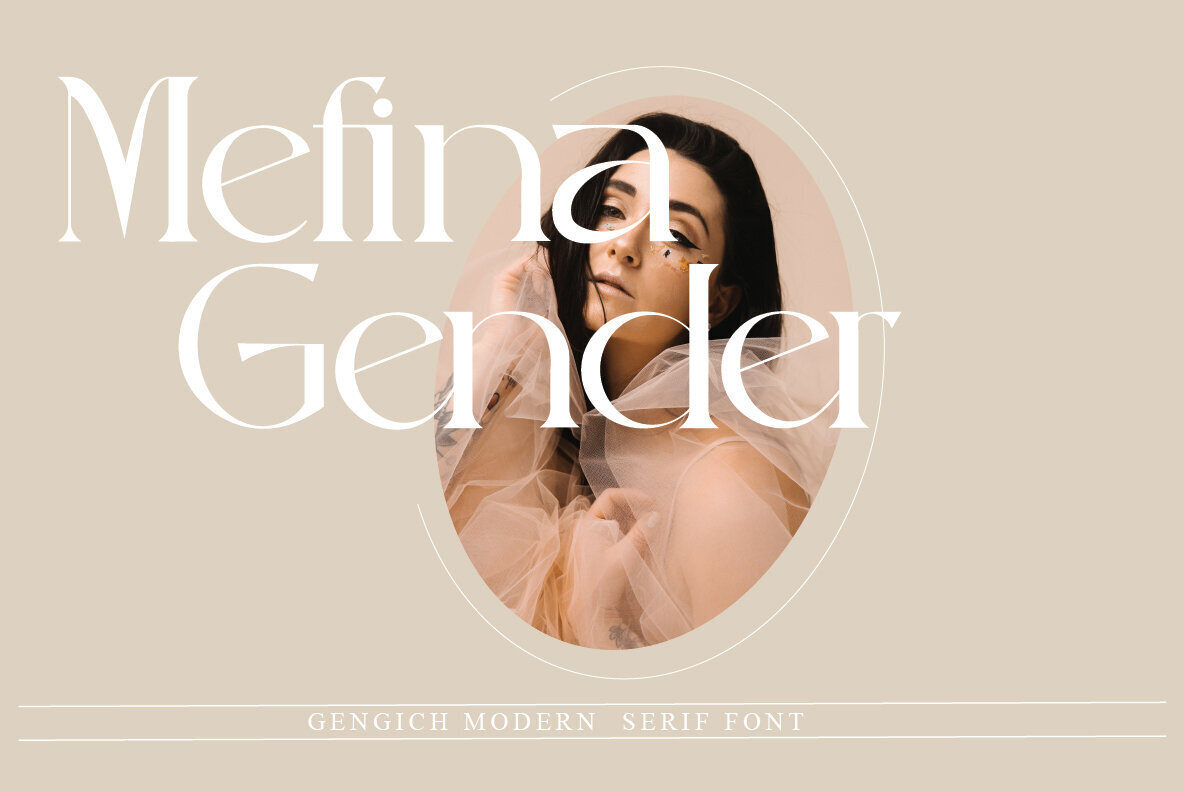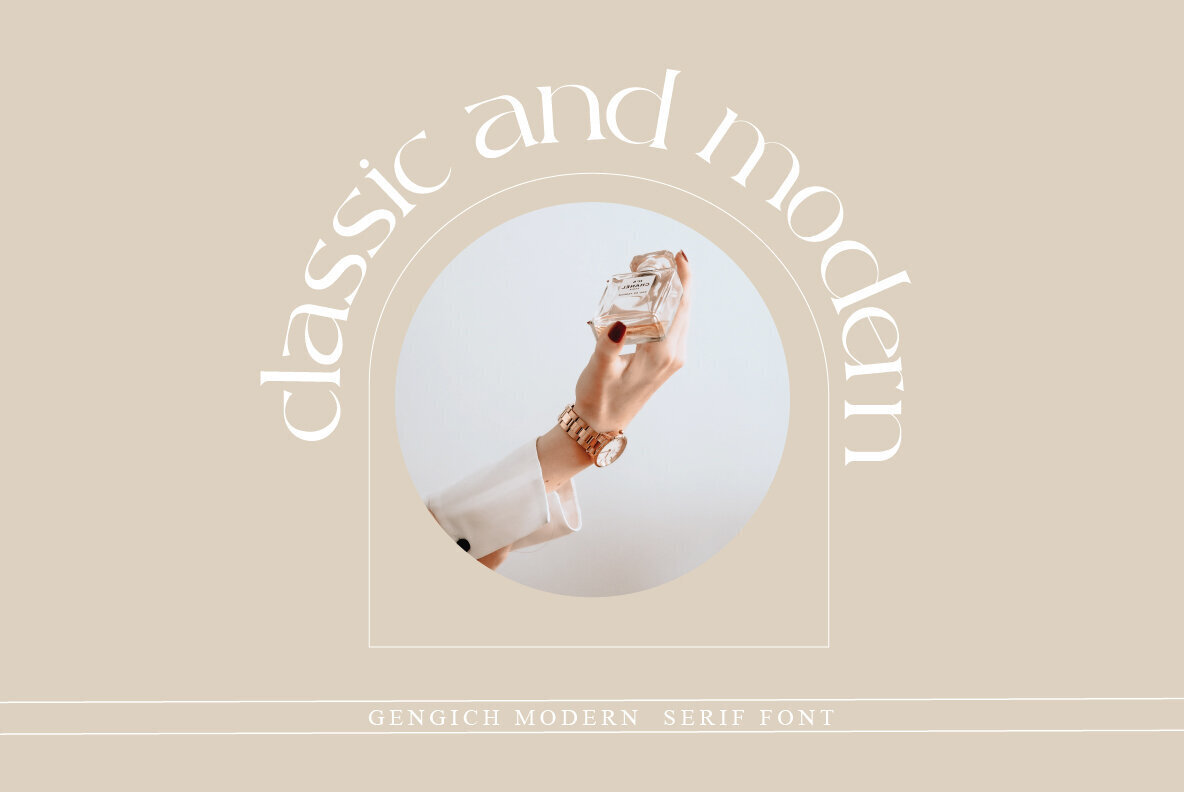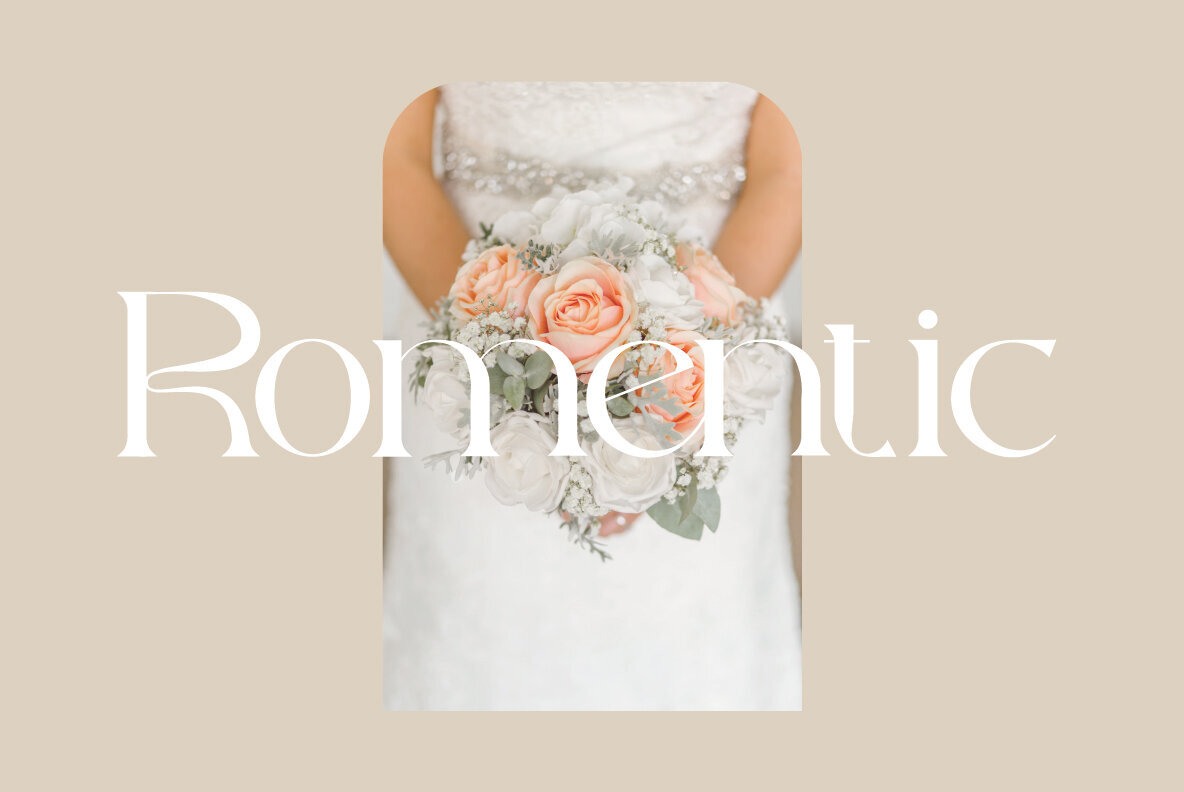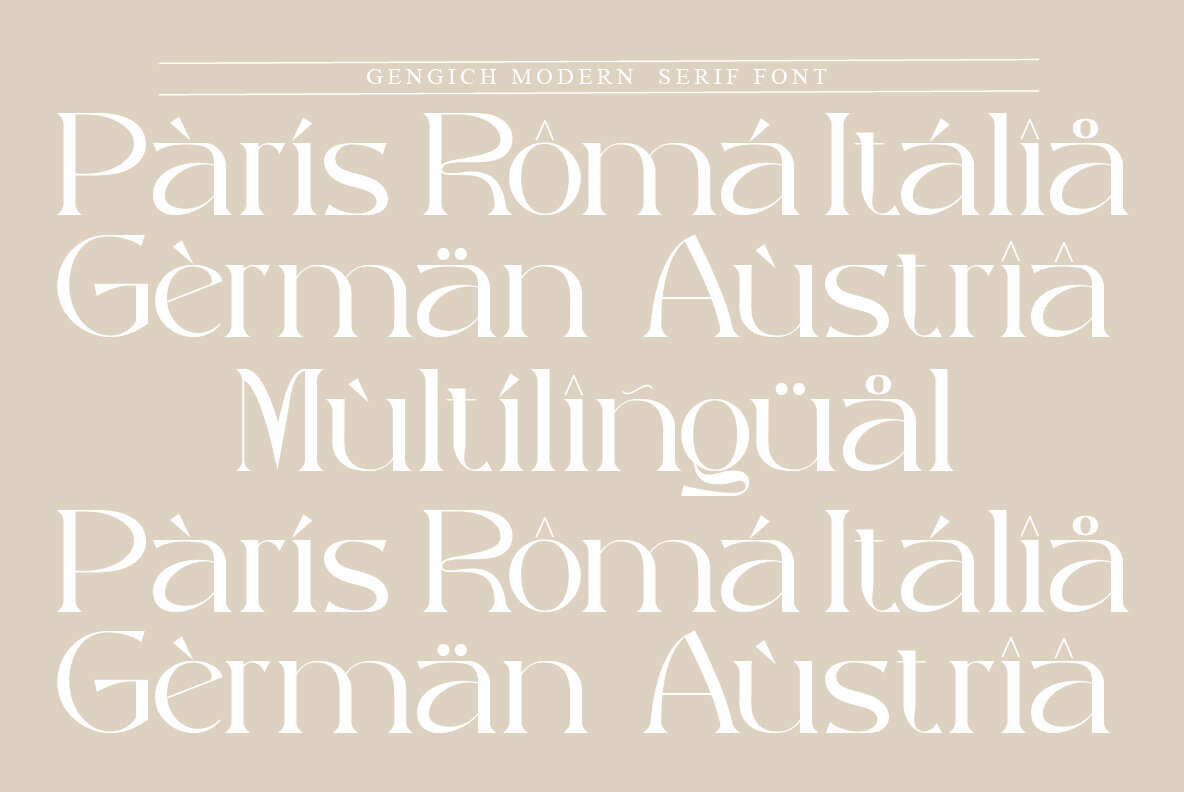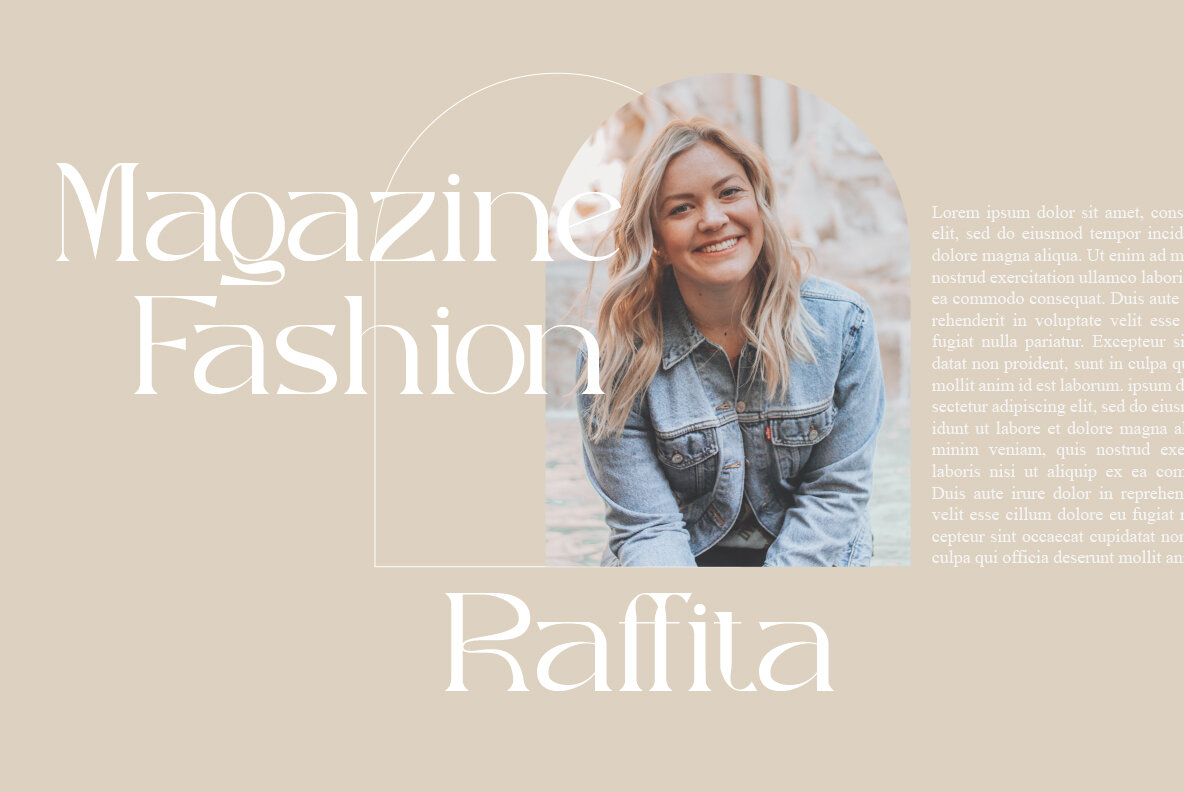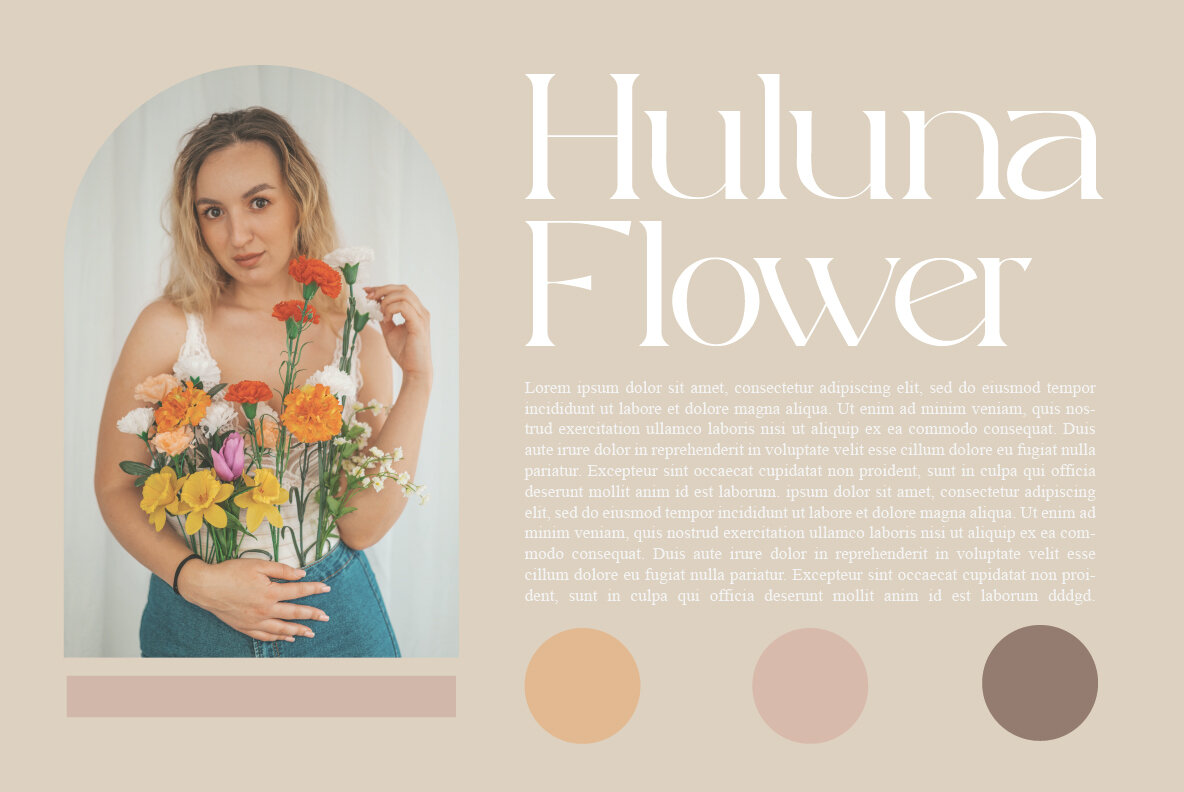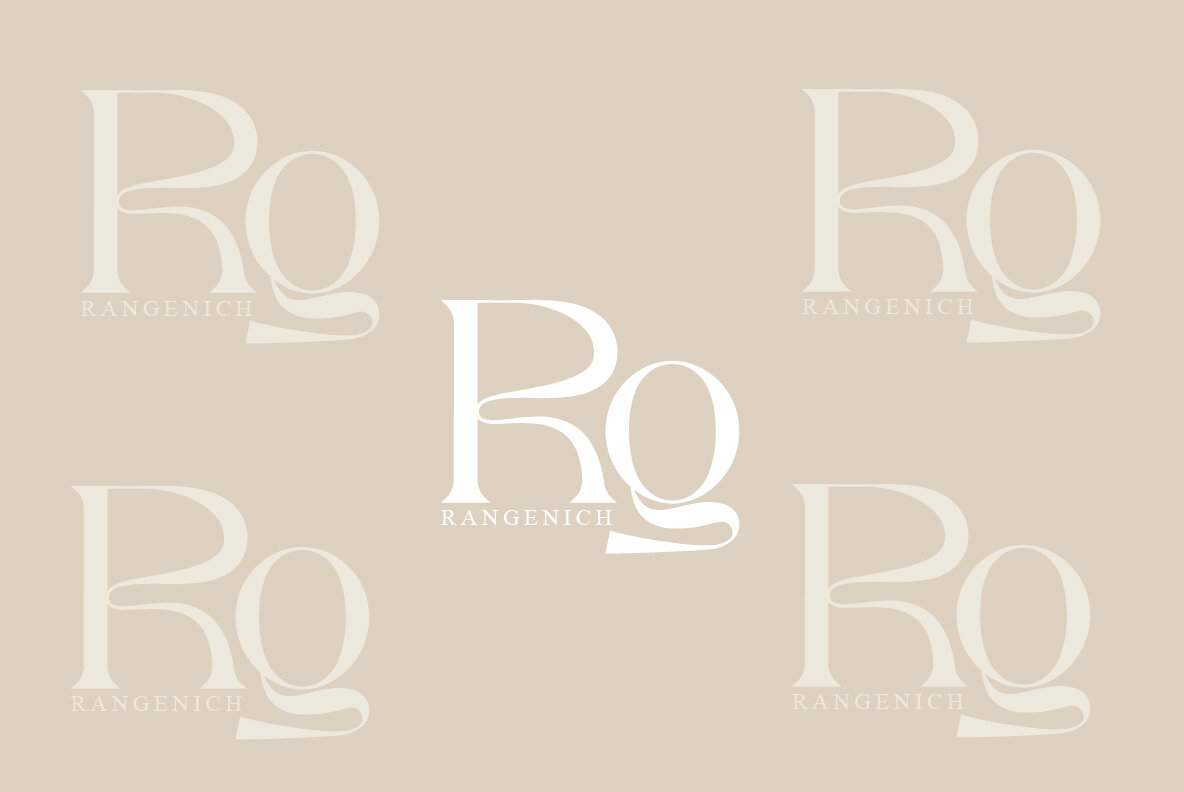
Gengich Font
Gengich
Gegich Modern has a clean and modern look that will work well for anything from logos to packaging. It features beautiful ligatures, ornaments as well as multilingual support so you can use this font in all sorts of different projects!
- Lowercase and Uppercase
- Numerals & Punctuation
- Accented characters
- Multiple Languages Supported